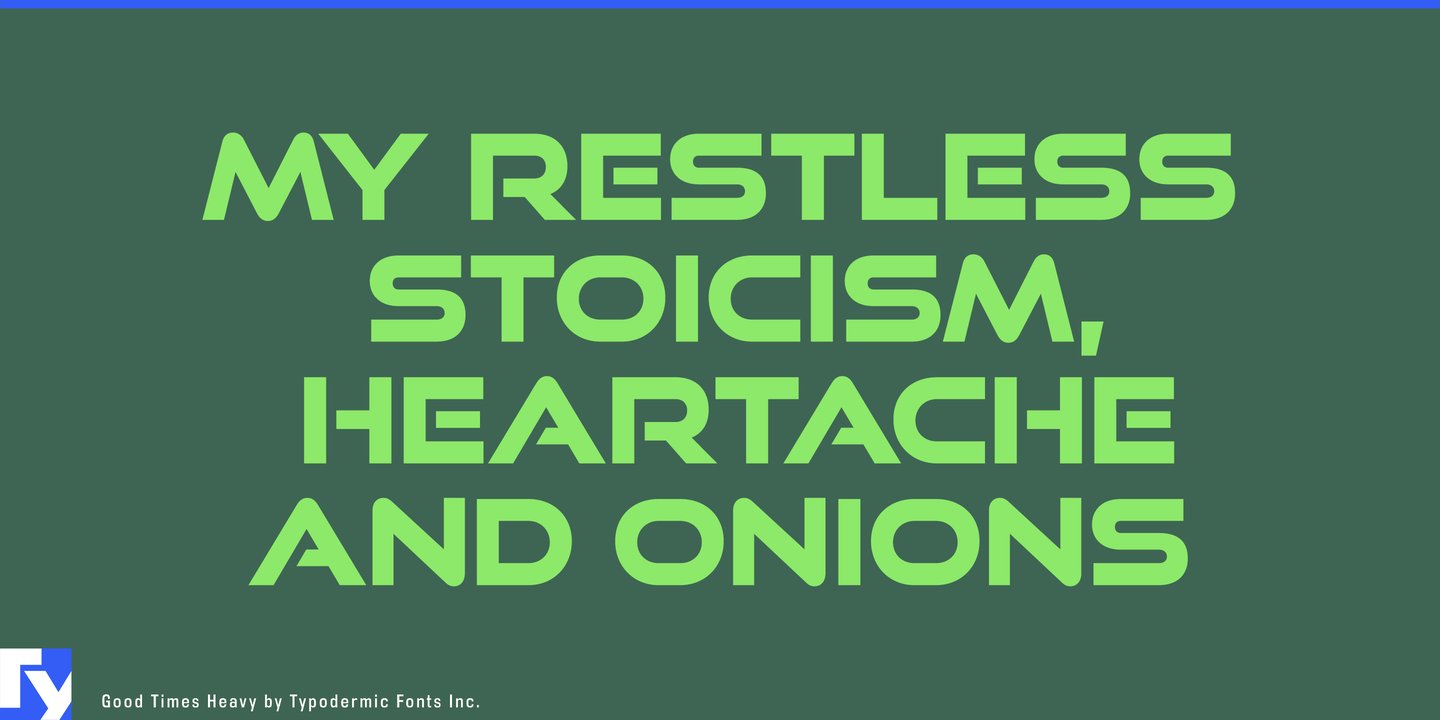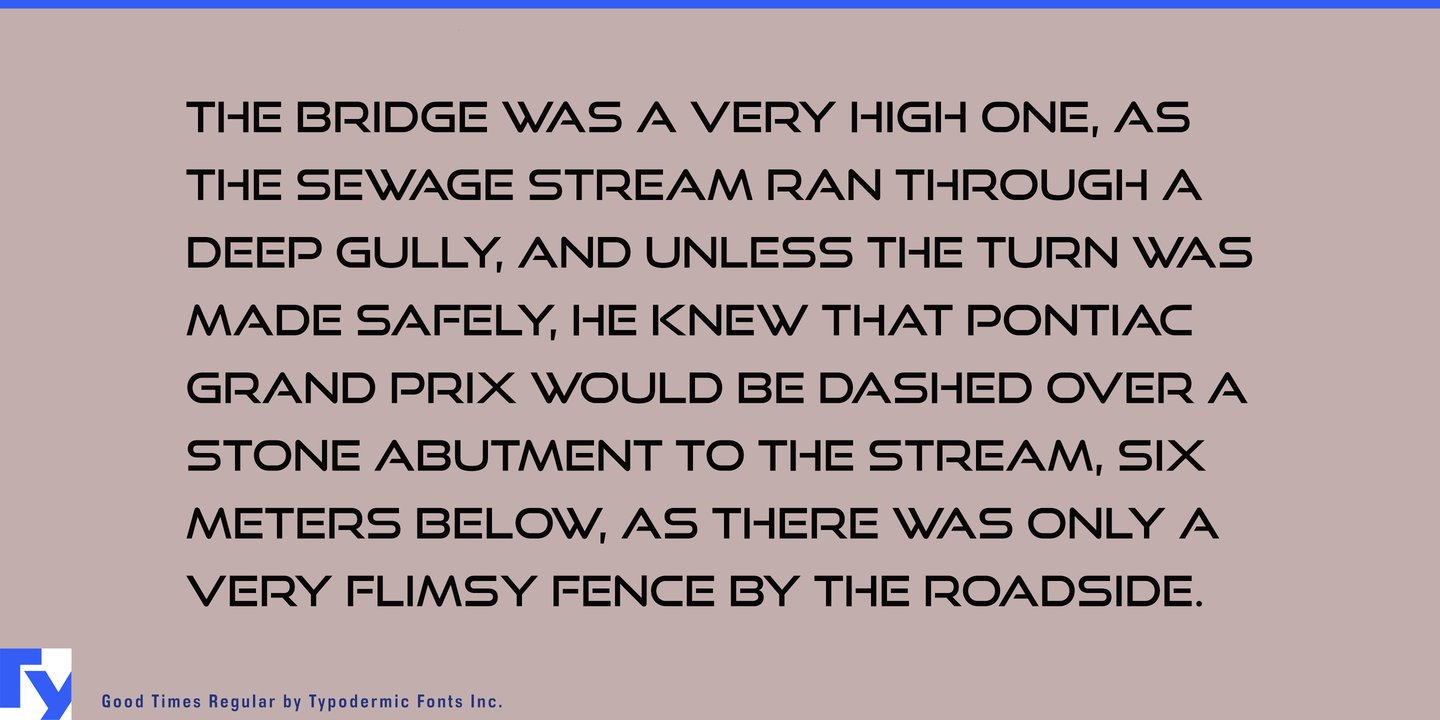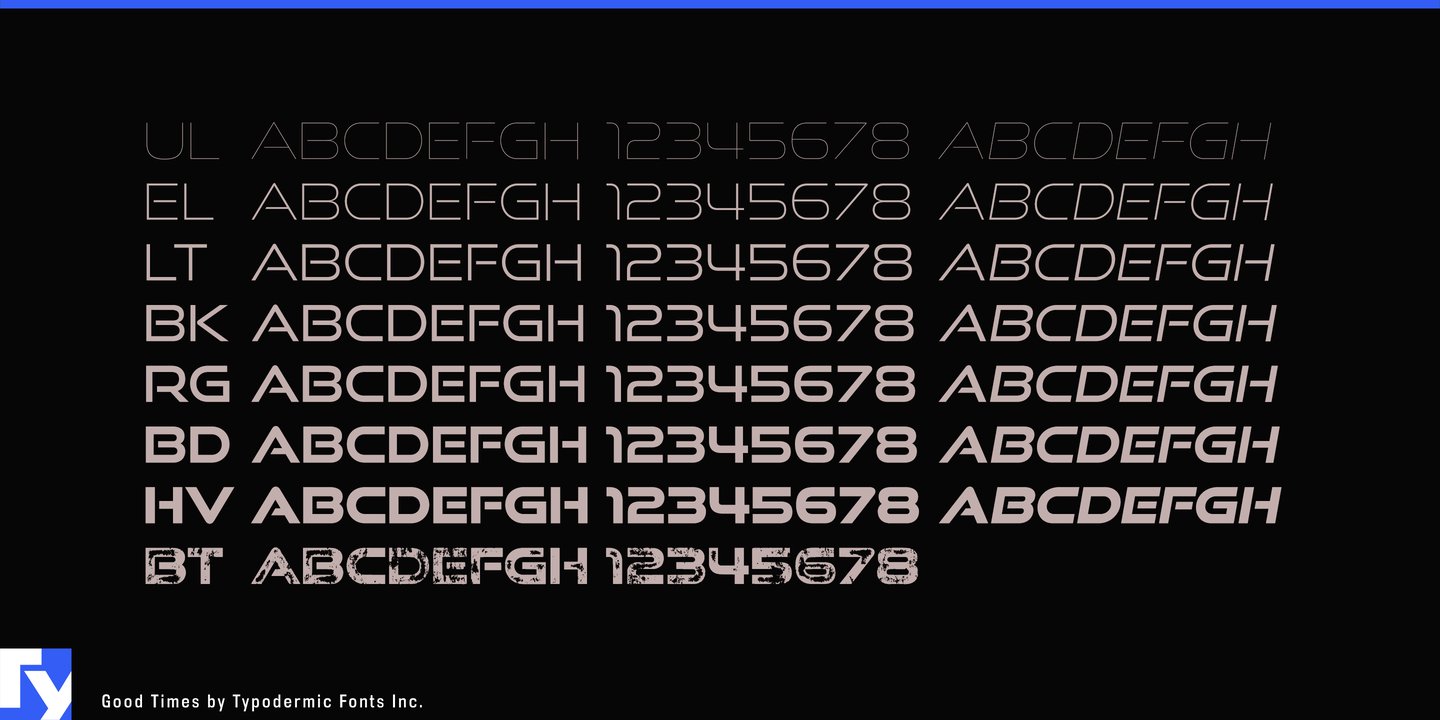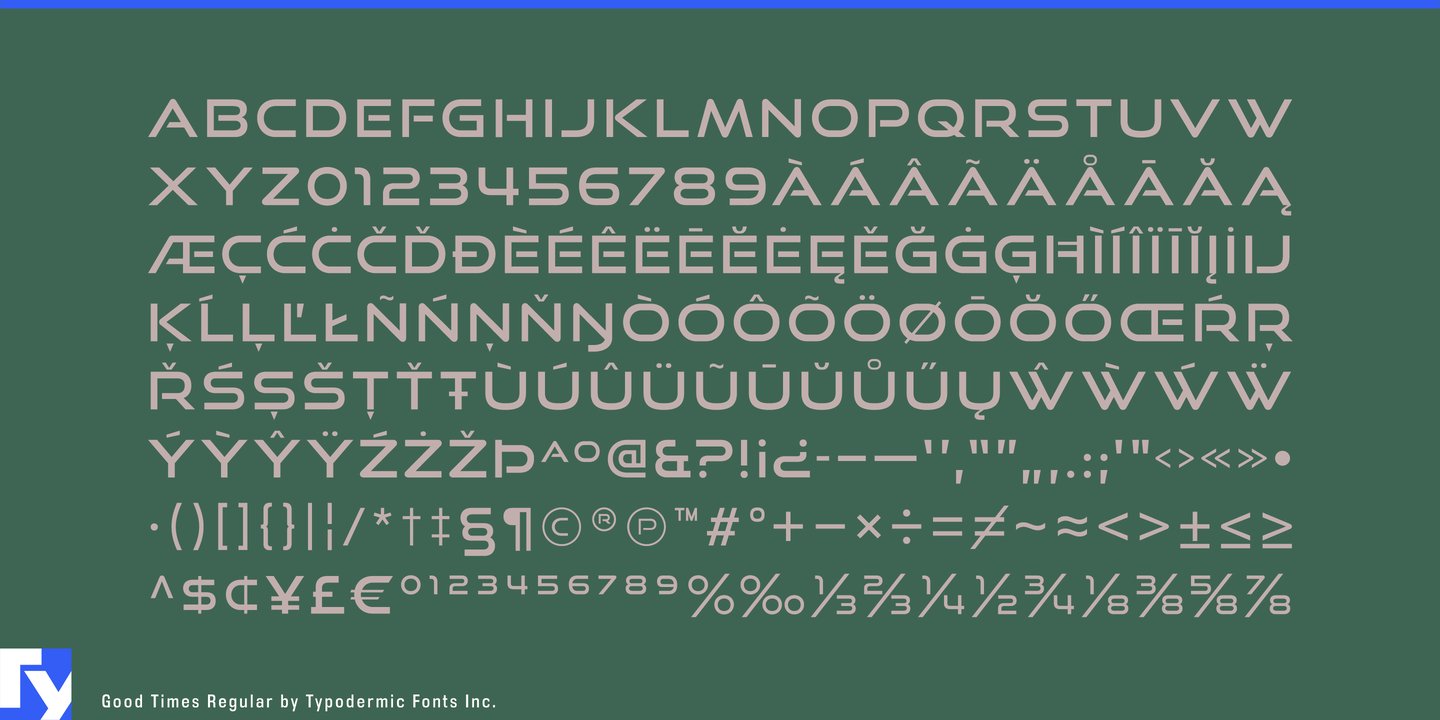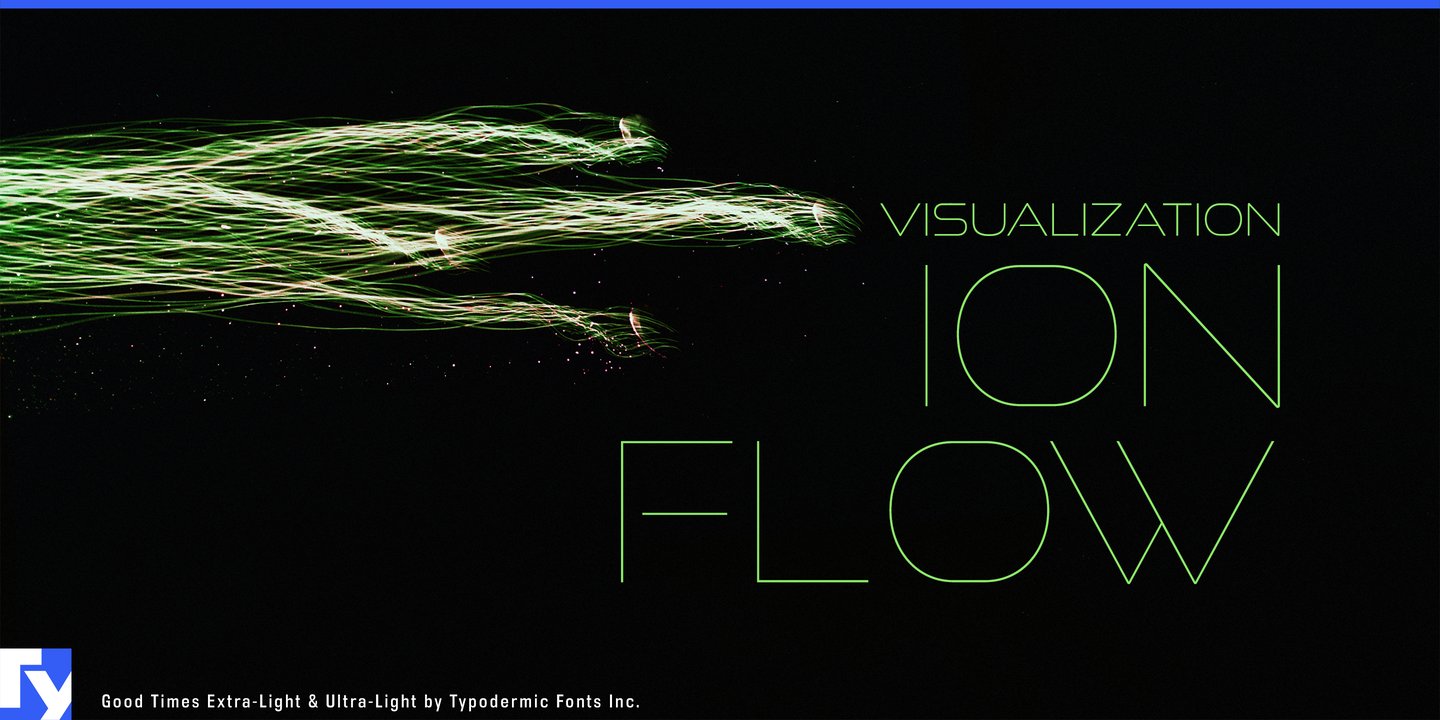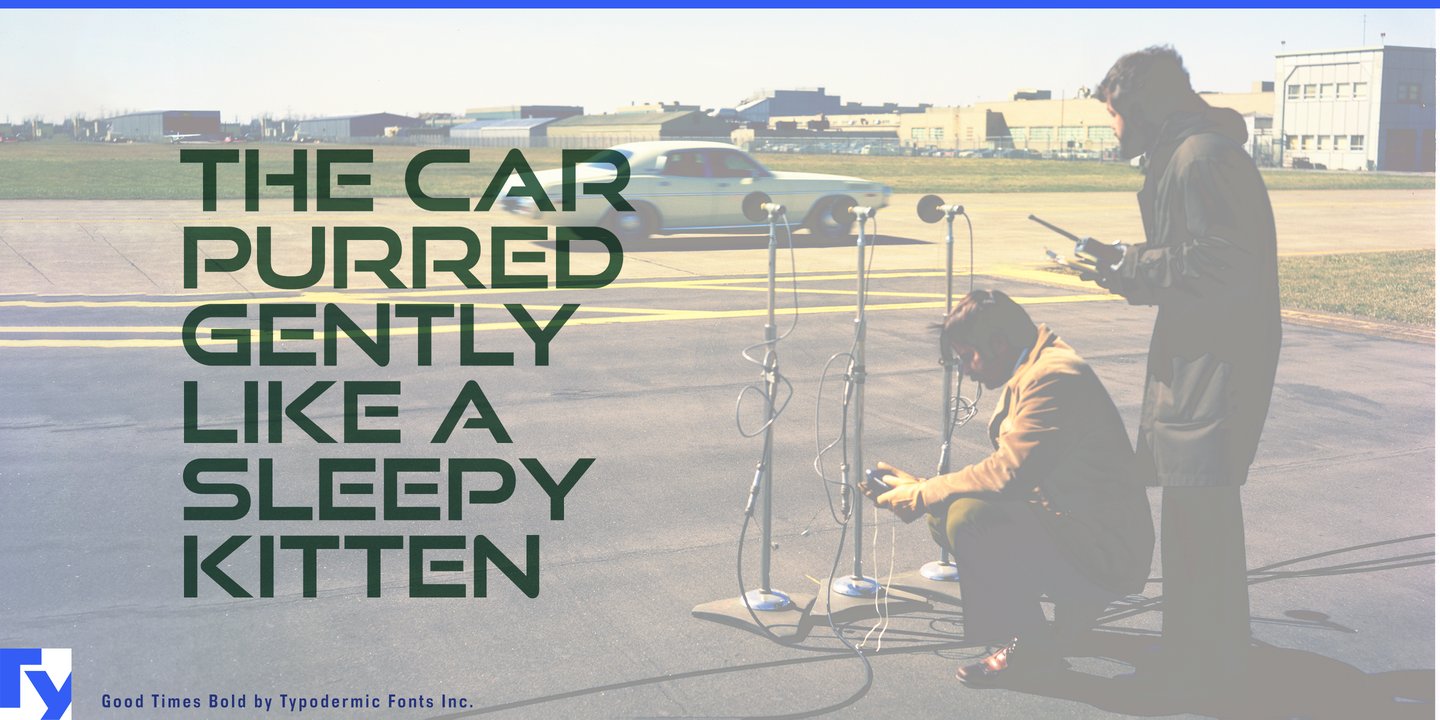
Introducing Good Times, the techno-inspired typeface that will take your designs to the next level. With its wide, capsule-shaped design, Good Times is perfect for high-tech, sports, and scientific themes. The letterforms were inspired by the lettering used on Pontiac cars from 1989-1994 and is designed with straight lines, simple forms, and unconnected strokes.
Whether you’re designing for a futuristic tech company or a cutting-edge sports brand, Good Times has you covered. The font comes in seven different weights, including oblique styles, so you can choose the perfect weight for your project.
For a more edgy look, check out Good Times Bad Times, a rusty texture variant that adds a rugged feel to your designs. And with OpenType technology, you can automatically substitute common letter pairings with customized ones for a genuine chipped metal aesthetic.
But that’s not all. If you’re looking for lowercase letters, be sure to check out Good Timing, the follow-up to Good Times. With its sleek, modern look, Good Timing is the perfect complement to Good Times, offering even more design possibilities.